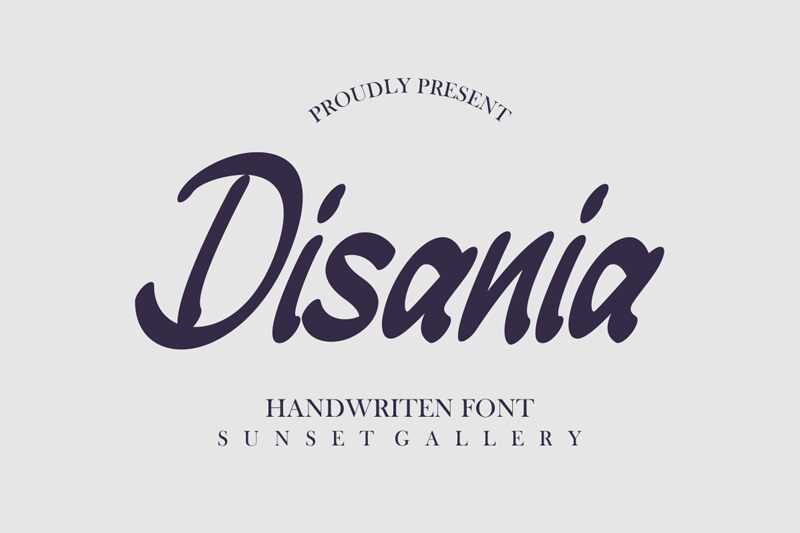
Disania
Disania font is a charming free handwritten font will turn any creative idea into a standout.
Perfect for all logos, branding, social media, etc.